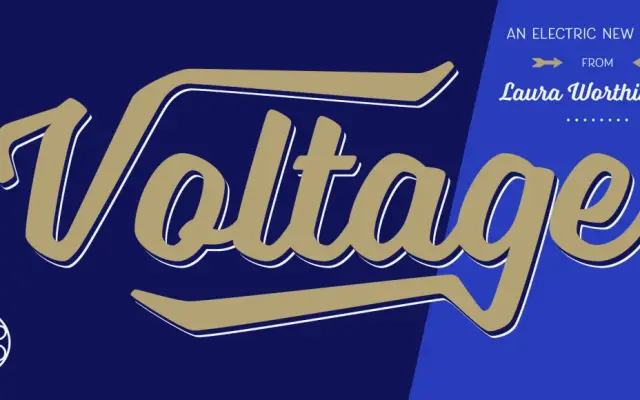
Voltage
A structured connected script inspired by the embossed metal lettering found on automobiles of the early-to-mid 20th century.
Drawing on the vernacular of Industrial Age automobile badging, Voltage sits between script and mechanical lettering with a uniformity that sets it apart from looser calligraphic styles. The family spans three weights and ships with an unusually generous set of OpenType features: 154 swash designs with 348 total variations, 39 alternates and 15 ligatures. Laura Worthington has also coded the fonts to make all swashes and alternates accessible without specialist design software.
Voltage is a connected script with structured, upright letterforms referencing industrial metal automobile lettering, giving it a mechanical quality distinct from calligraphic or brush scripts.